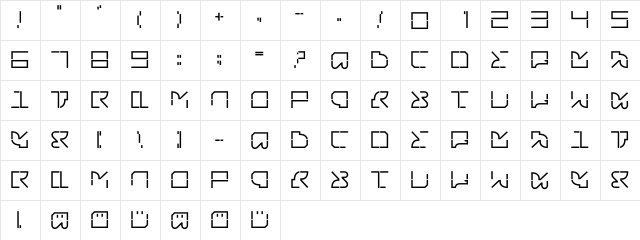
typecube Regular
| Designer | Manuel Kiem |
Design Context for typecube Typeface
typecube is a composed and adaptable typeface that performs quietly and consistently across a wide range of design contexts.